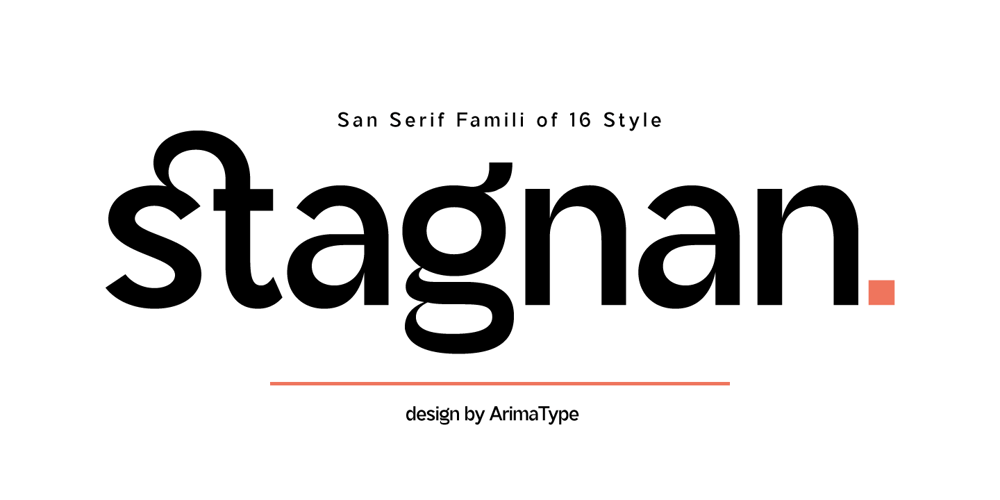
Stagnan
Stagnan font
Stagnan Font Family was designed by Amri Mauludin and published by ArimaType. Stagnan contains 16 styles and family package options. Stagnan is a font with a subtle blend of passion and calculation.each glyph is made with great care in order to get results that do not disappoint. This gives the designer various options for typesettingA variable version is included with the full family, allowing maximum flexibility and control for the designer over the wide range of expression capabilities of the Stagnan superfamily.